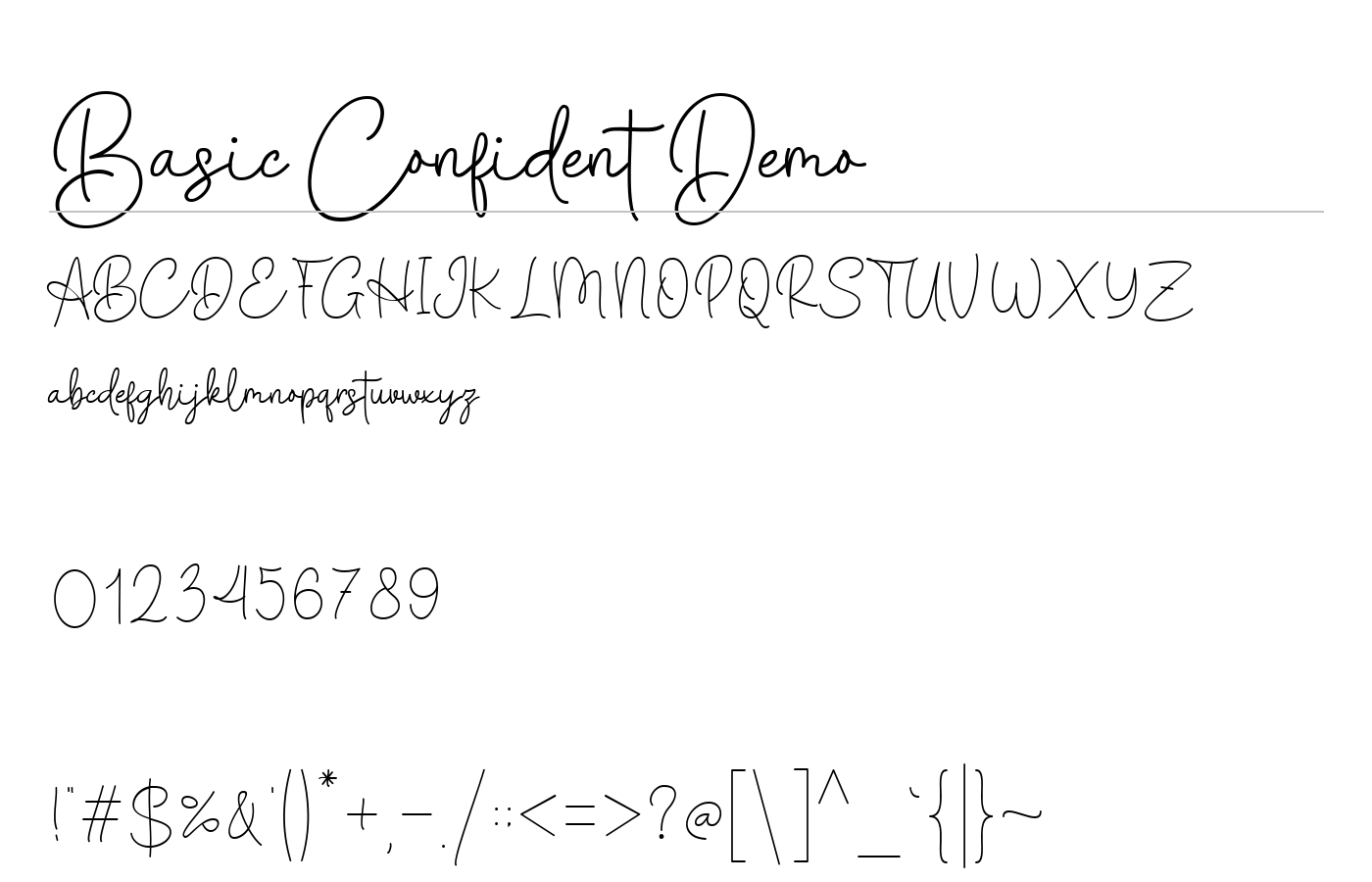
Basic Confident Demo is a delicate, lightweight handwritten script font that combines elegance with a personal, approachable feel. Its thin, smooth strokes and playful letterforms make it ideal for creative projects like invitations, branding, and stylish headlines where a touch of sophistication and warmth is desired. This font works especially well for designs aiming to convey charm and confidence with a modern, artistic flair.
Basic Confident Demo Font
About Basic Confident Demo Font